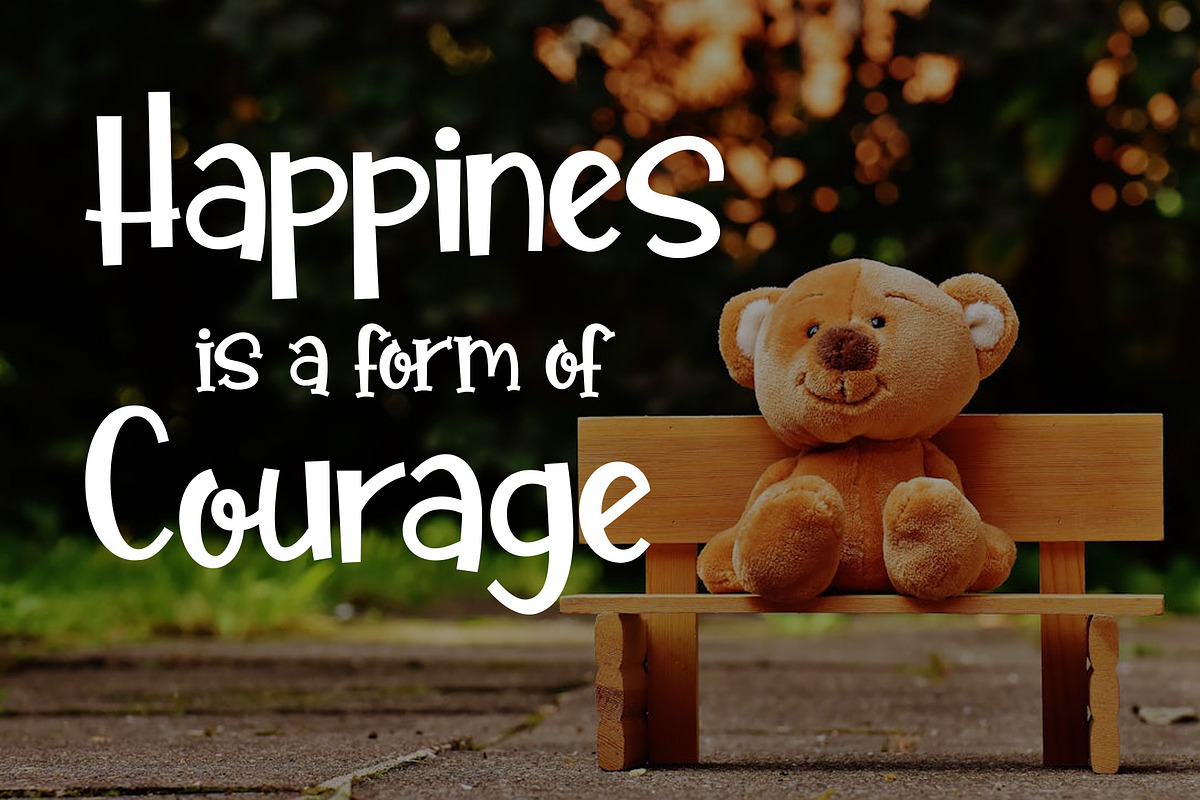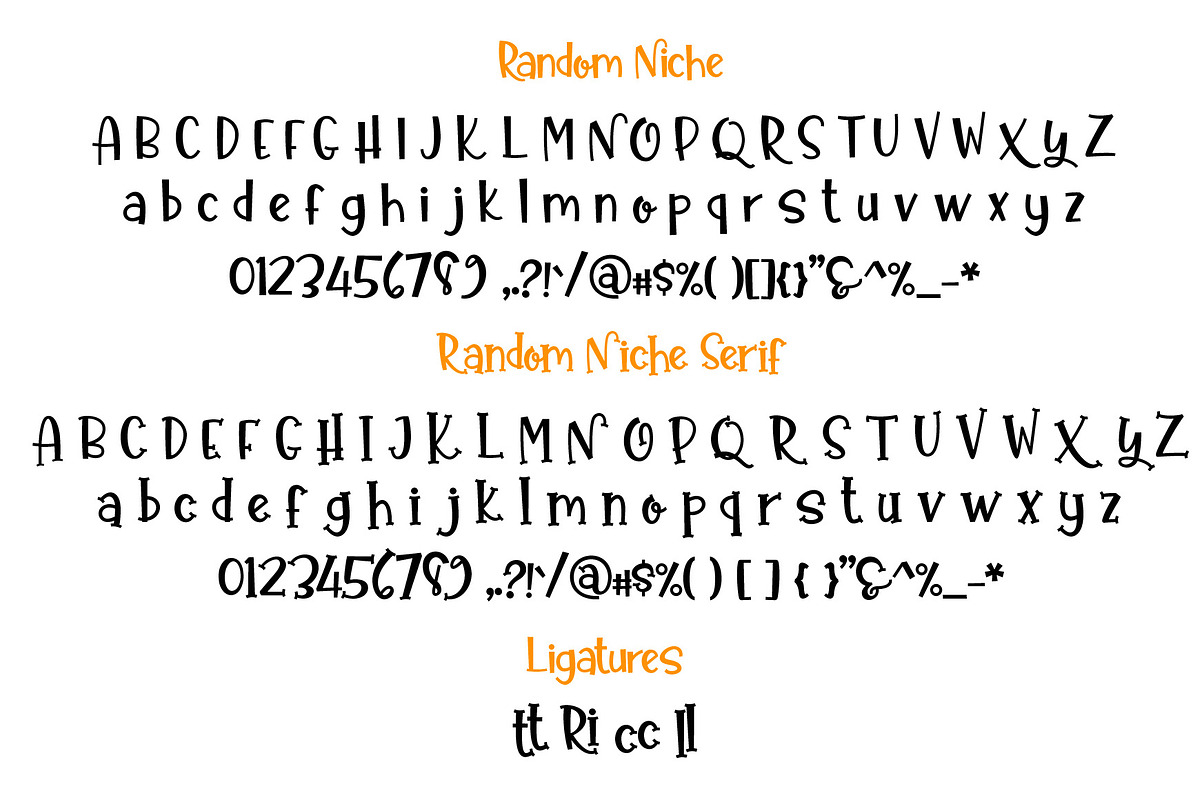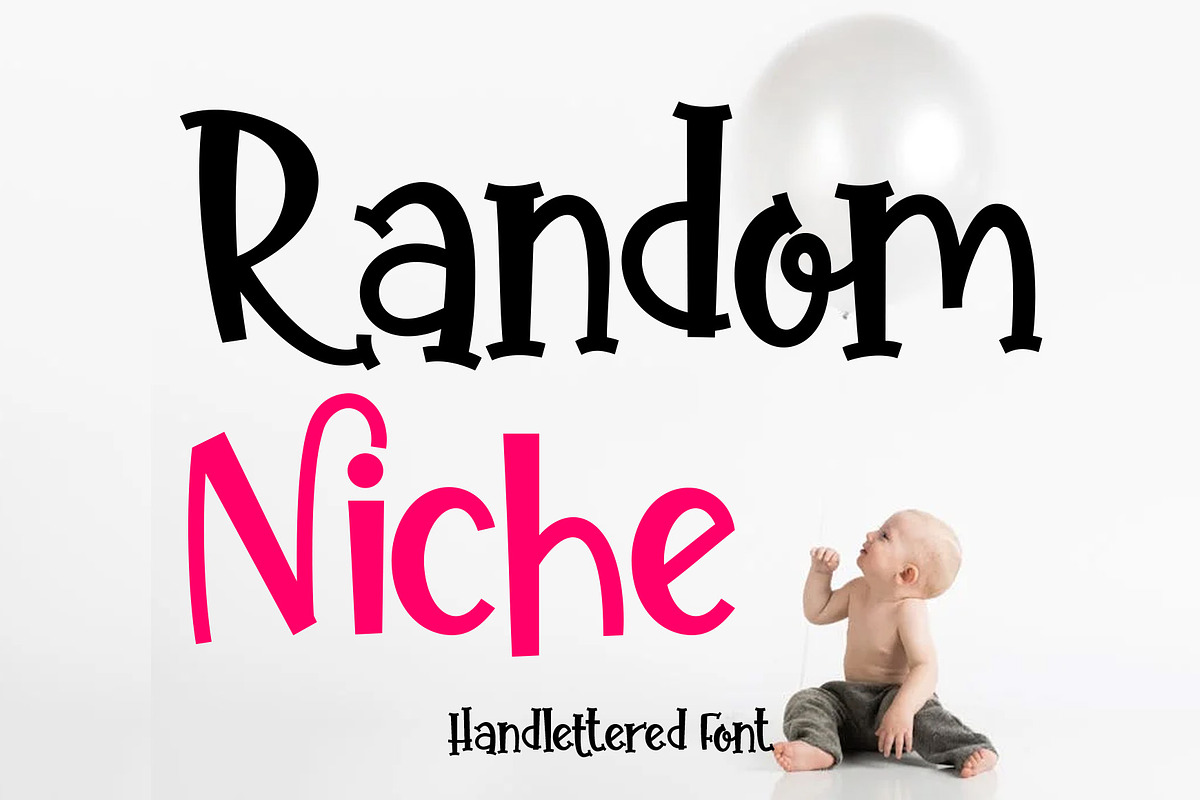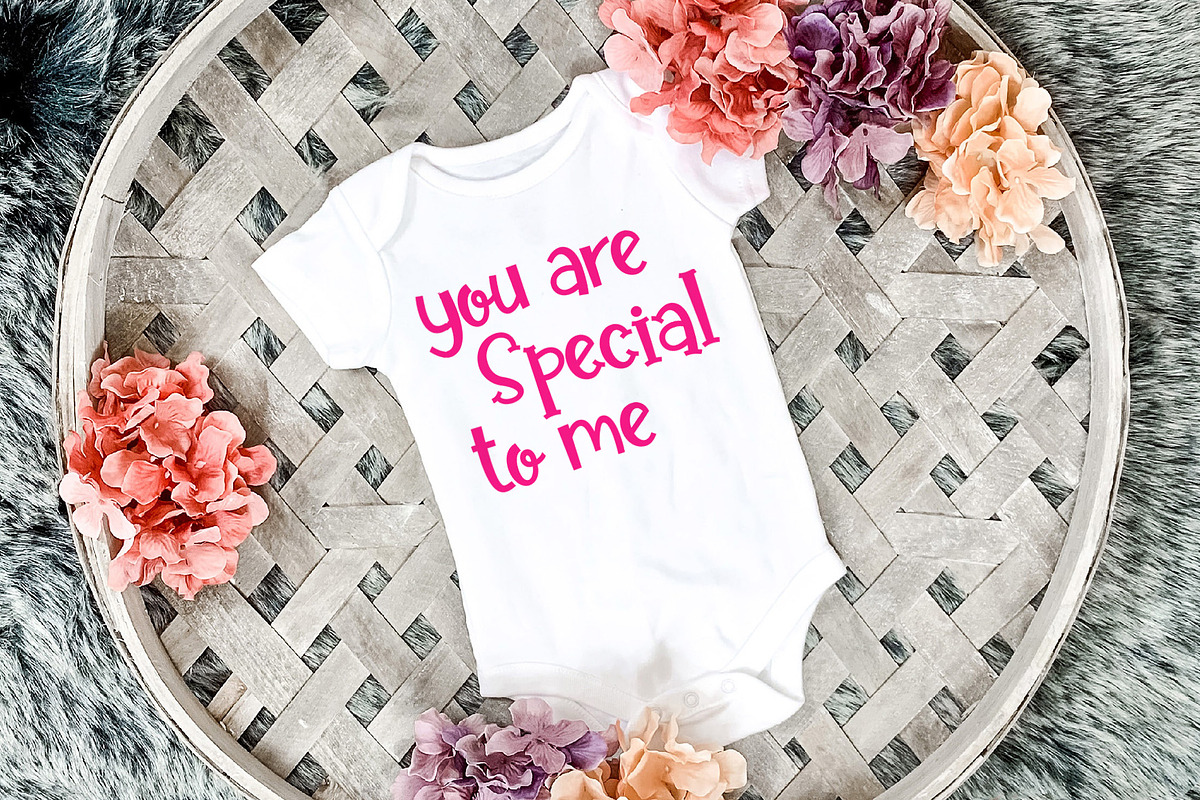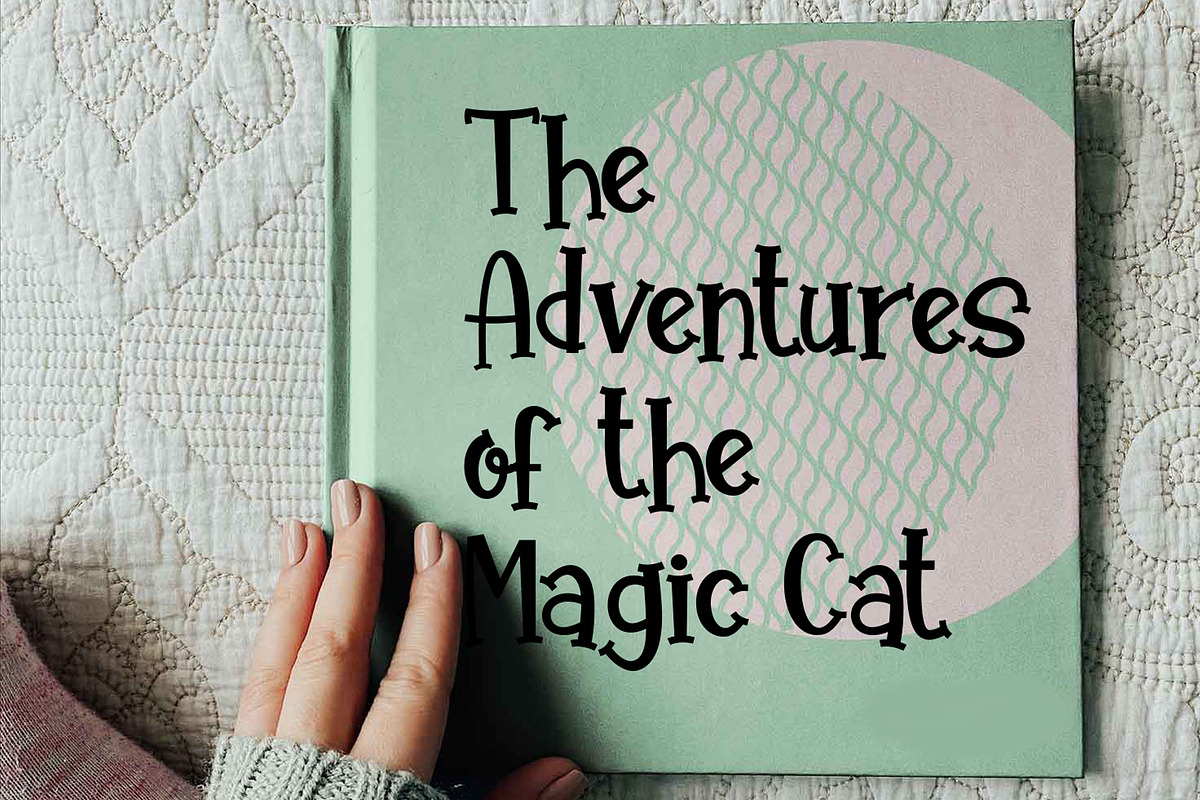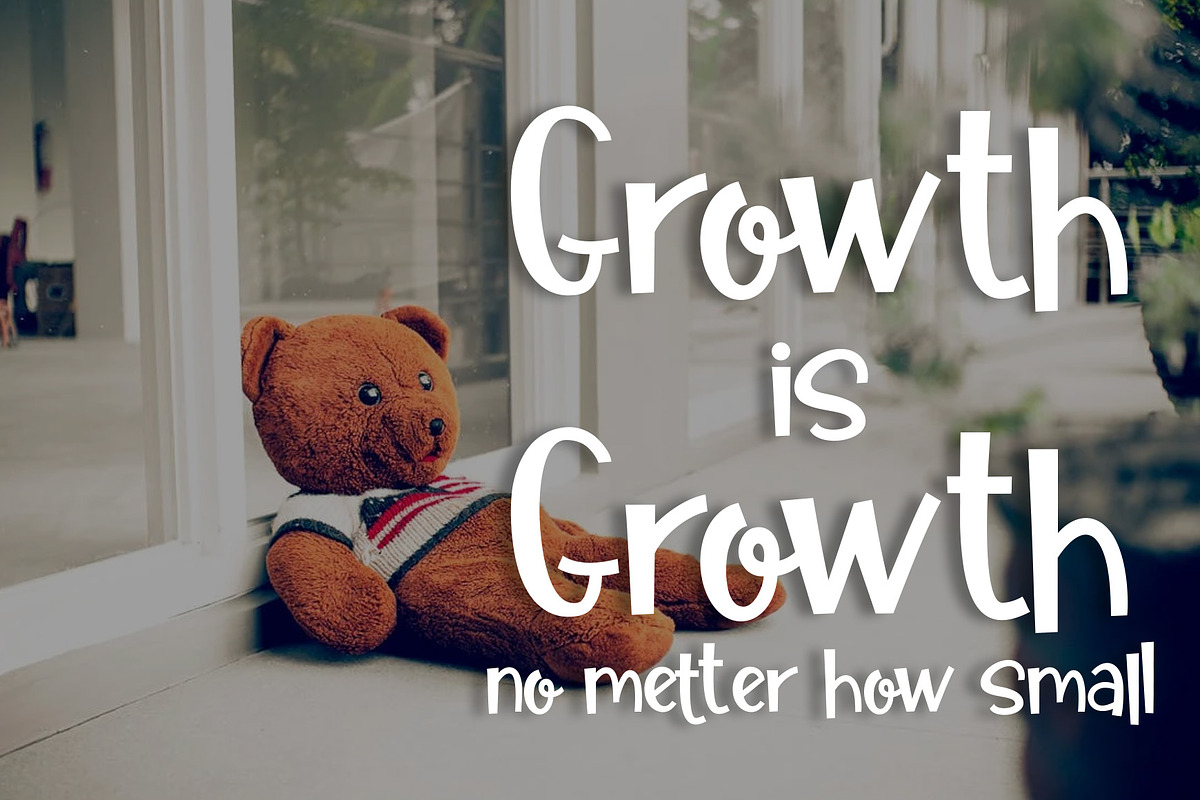
Random Niche Handlettered Font
Random Niche is a random font that is striking and full of character. With irregular and varied letter shapes, this font expresses creativity and artistic freedom. Each letter has a unique design, creating a dynamic and eye-catching appearance.
Random Niche comes in two versions, Random Niche Regular and Random Niche Serif. You can combine the two in a design project, or use them on their own.